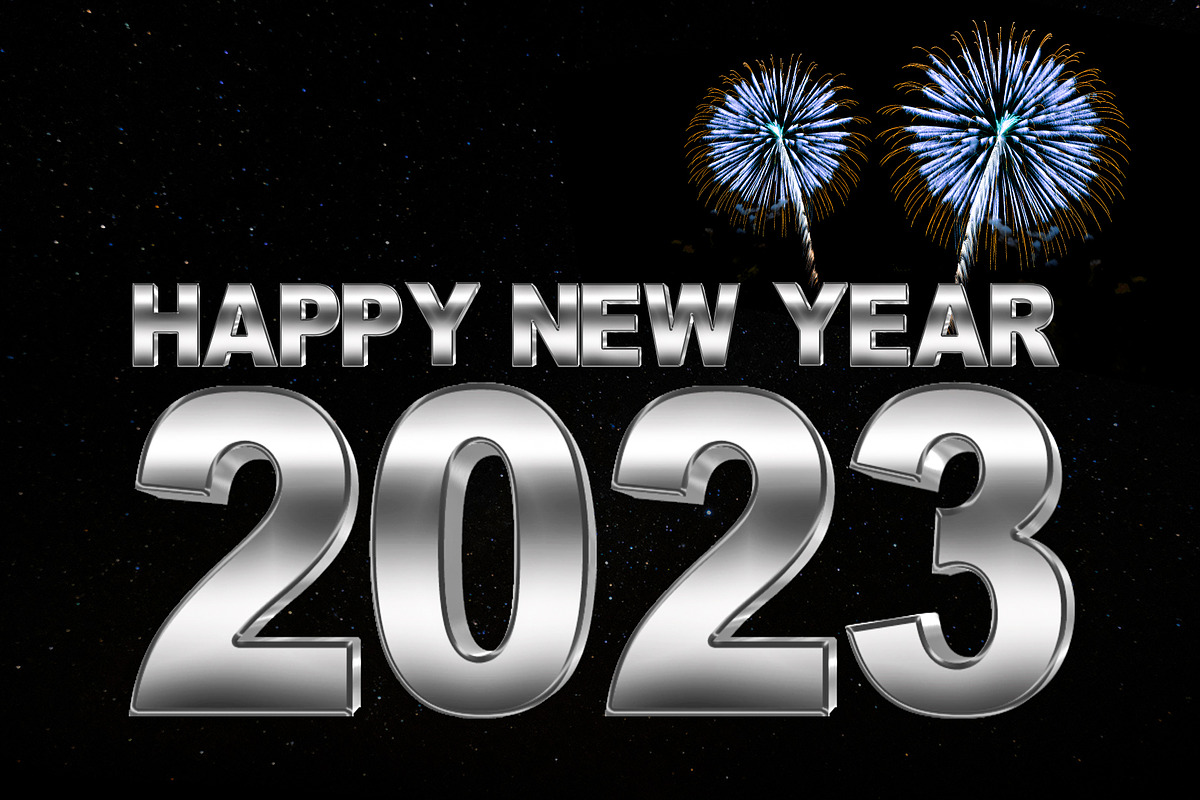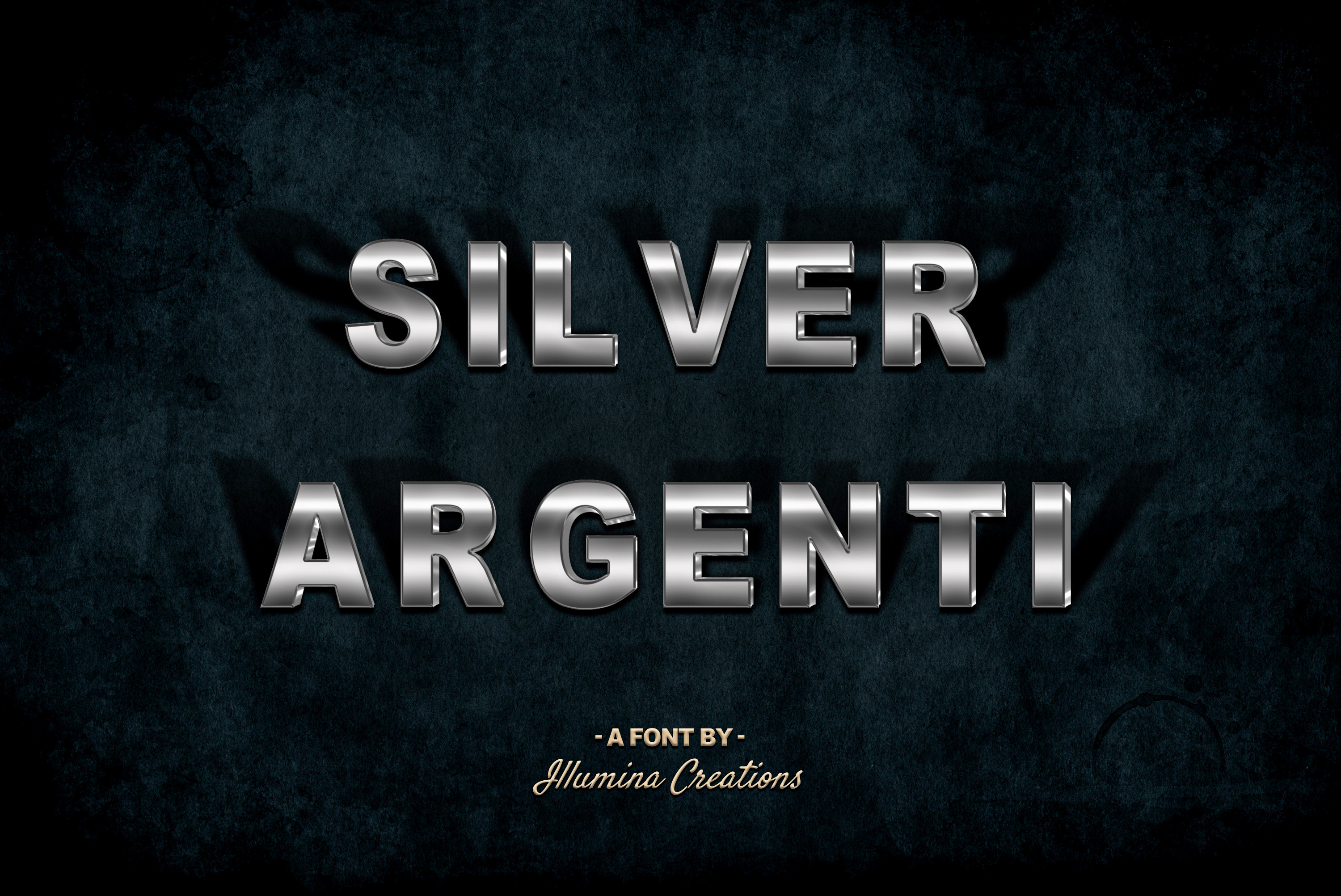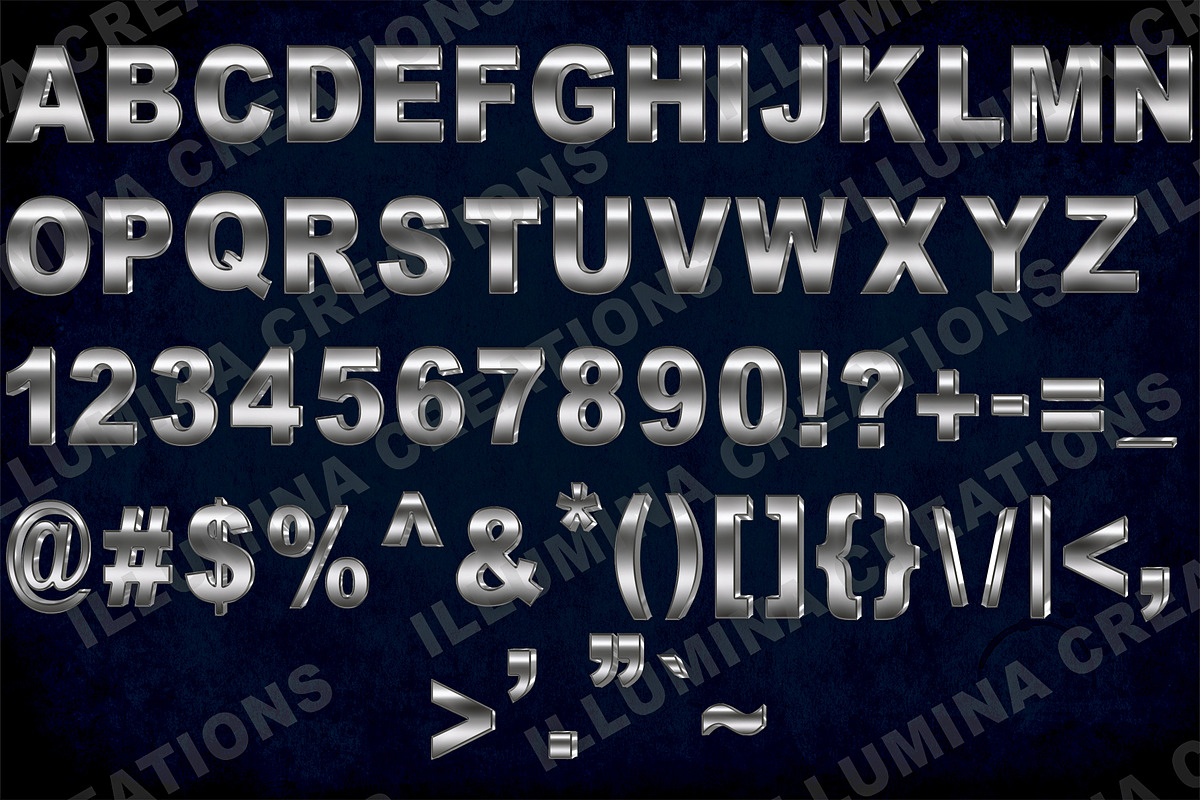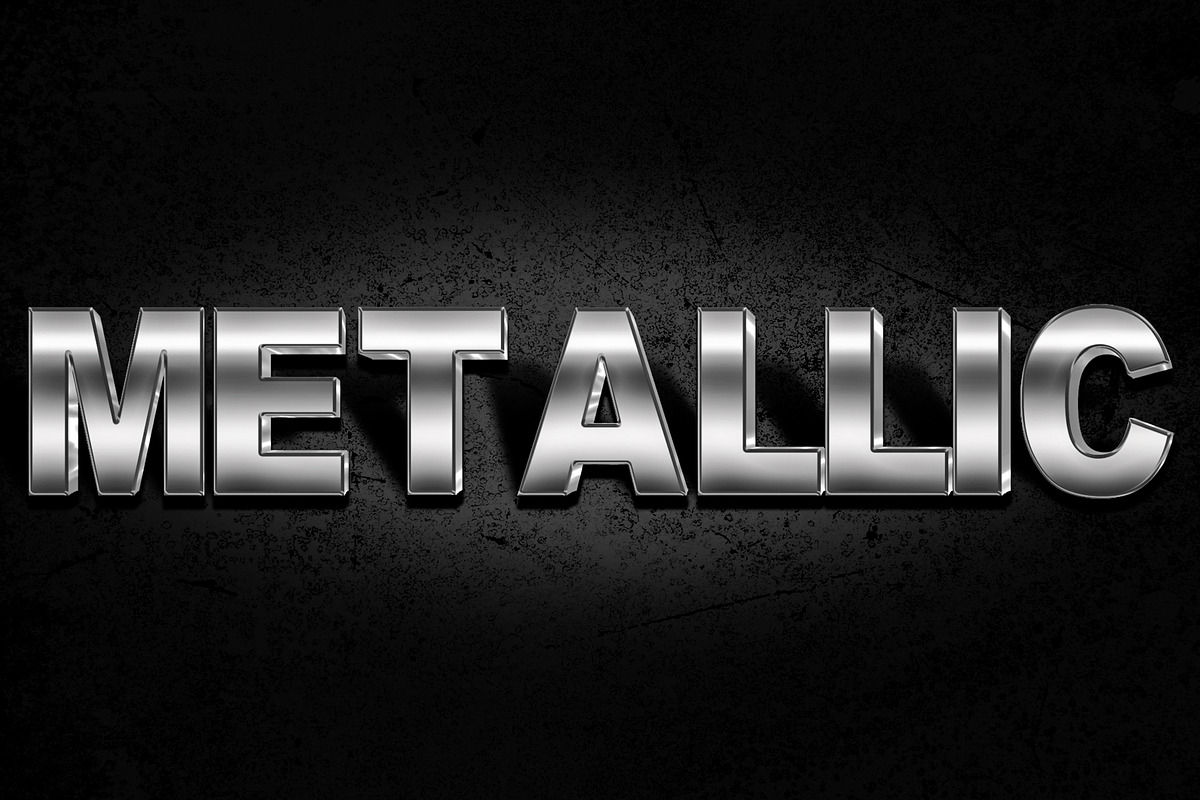
Silver Argenti Metallic 3D Font BMP
Silver Argenti is a colorized 3d rendered bitmap typeface. This is a color bitmap opentype font optimized for use in Adobe Creative Cloud applications. Included is the OTF font file as well as a set of high resolution PNG files with transparent background.